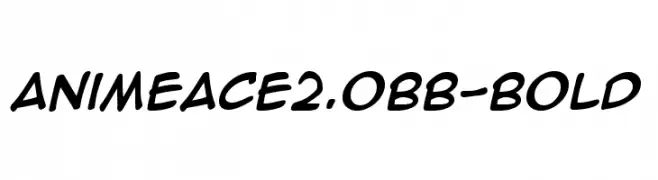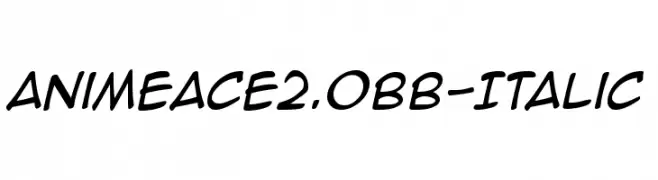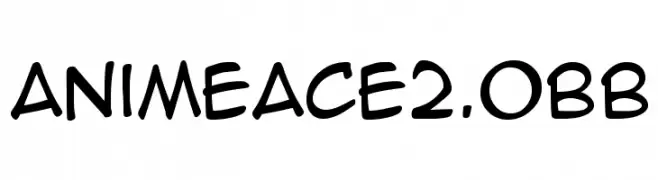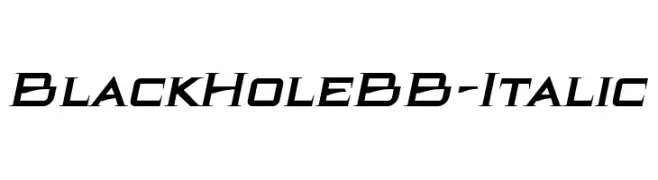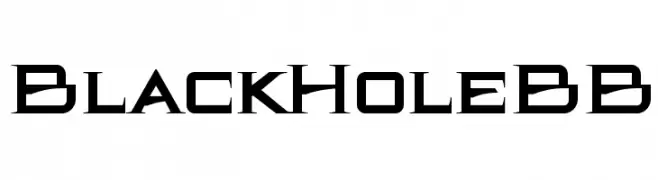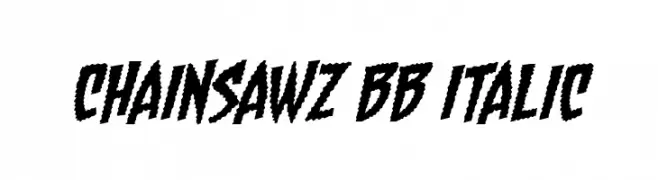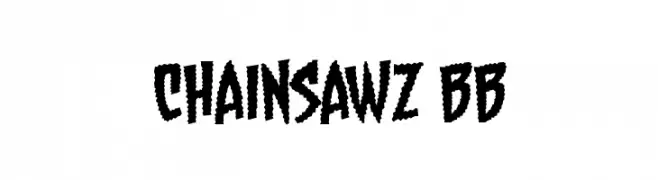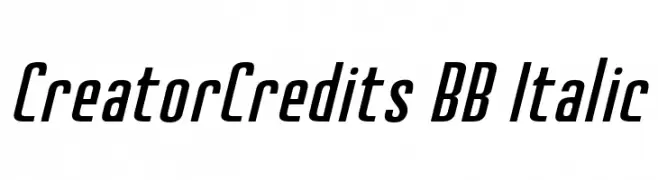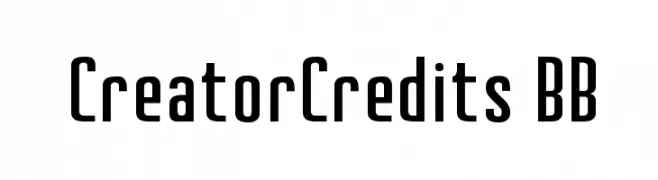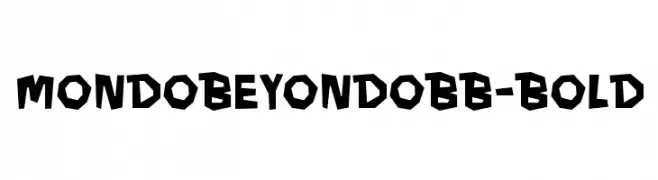
A modern, italic font with a sleek, condensed style and consistent stroke weight.
A bold, modern font with clean lines and a slightly condensed style.
A bold, playful handwritten font with a dynamic and energetic style.
A playful, italicized handwritten font with smooth, bold strokes.
A playful, bold font with rounded, hand-drawn letterforms.
A jagged, edgy font with a chainsaw blade aesthetic, perfect for bold designs.
A bold, jagged, italicized font with a rugged, chainsaw-cut appearance.
A bold, italic, futuristic font with sharp, angular lines.
A futuristic, angular font with sharp edges and geometric shapes.
A bold, decorative font with angular, playful shapes and thick strokes.